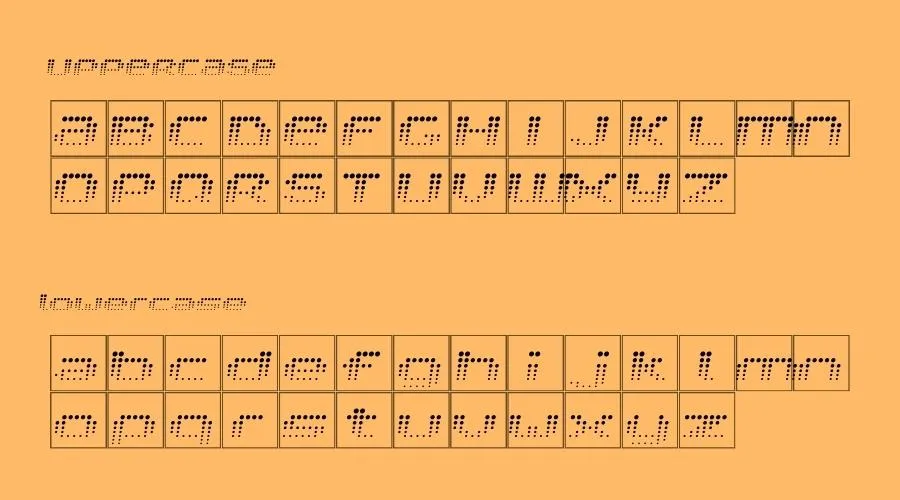
V5 Prophit Fading Font
About V5 Prophit Fading Font
Now, introducing to you a fantastic techno typeface family named V5 Prophit Fading Font. This font was developed by a famous graphic designer named Roberto Christen. The subfamily of this texture is fading and also it looks like roman types and ICD fonts.
This font is a perfect choice to increase the enhancement of your designs. It is available in traditional textures, and the basic characters of this font are pretty.